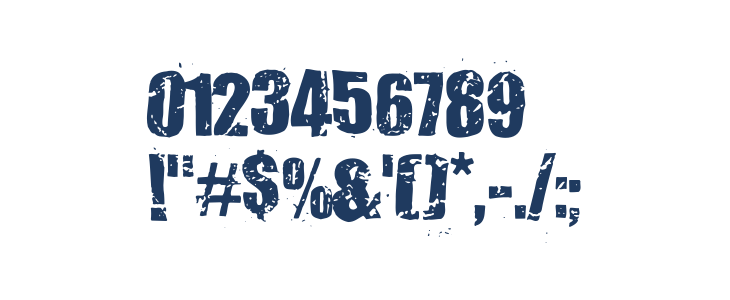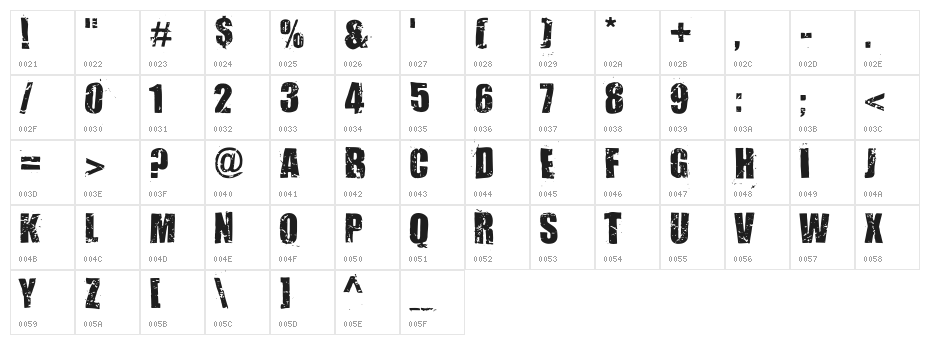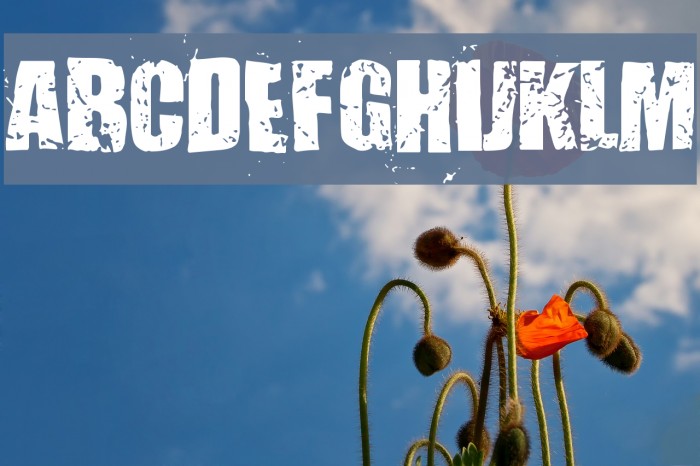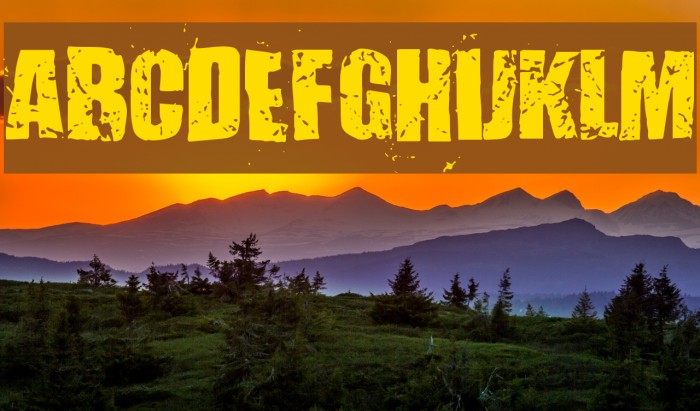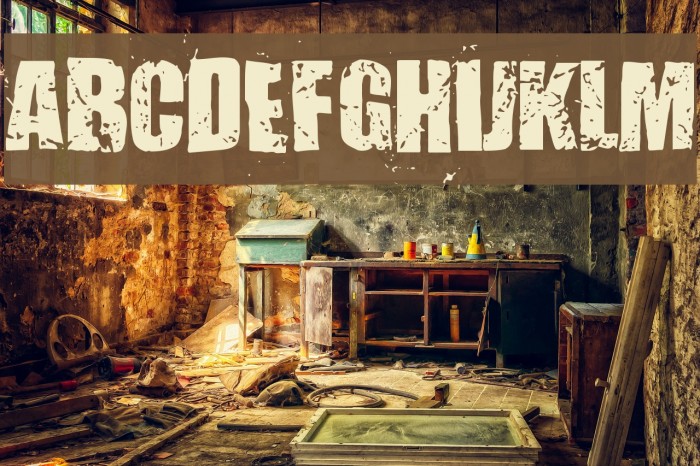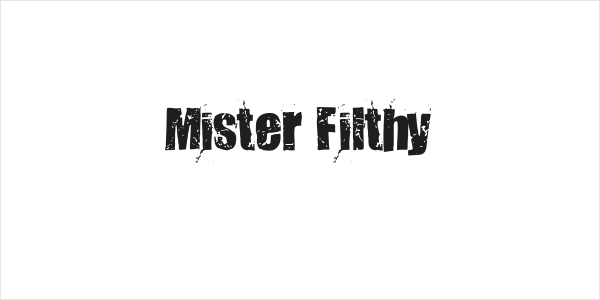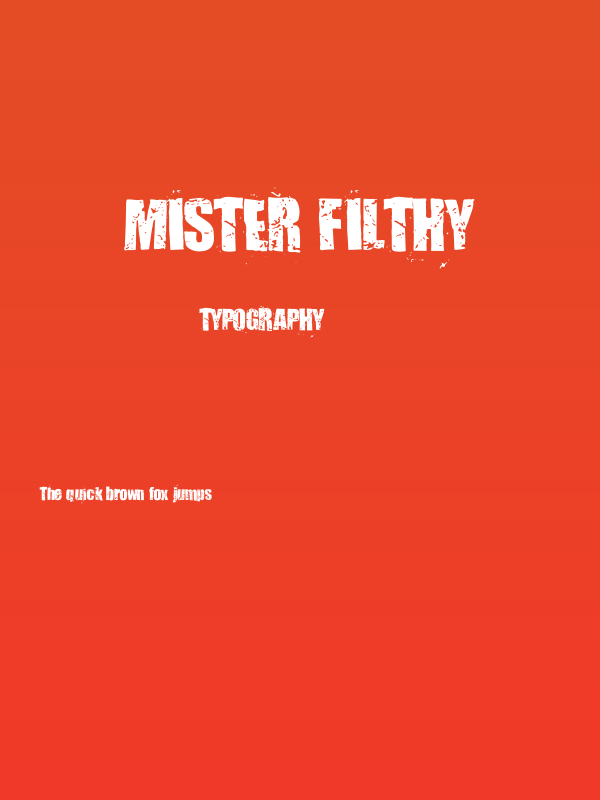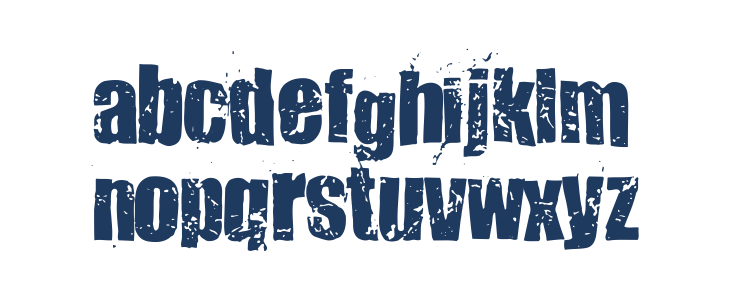
Mister Filthy Font
| Категория | Graffiti |
| Общий стиль | Grunge, Urban, Vintage |
| Рекомендуемые проекты | Ideal for album covers, posters, streetwear branding, or any project needing an edgy, urban vibe. |